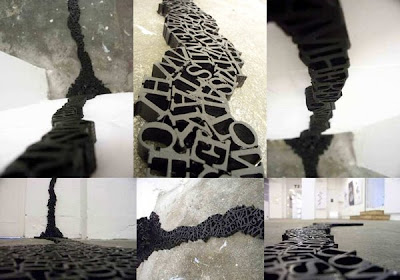
TypeFace Tuesday :: INFORMATIONLEAK
What I tried to do was visually represent the way information is so easily leaked into today's society, through the Internet and television. Pretty much anything you can imagine, you can get your hands on. With such an abundance of information, I feel as though it over-flows into our lives and the typography is purposefully hard to read to reflect this.